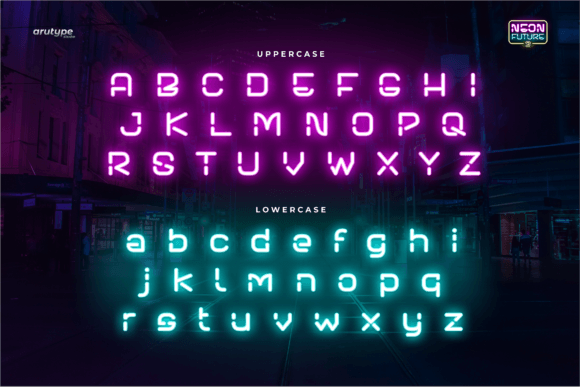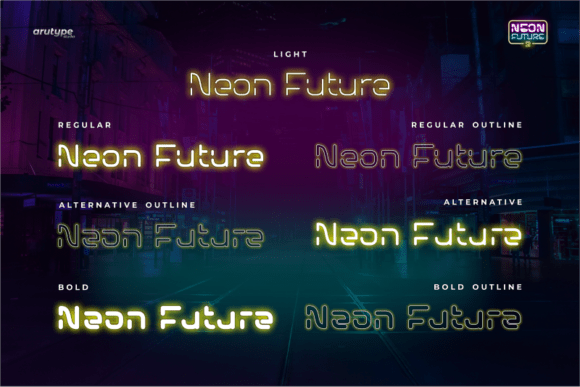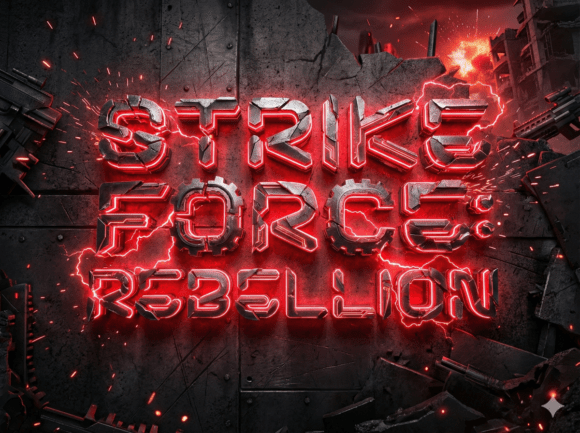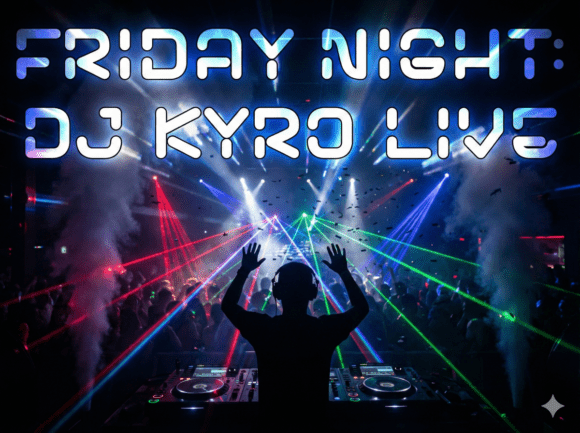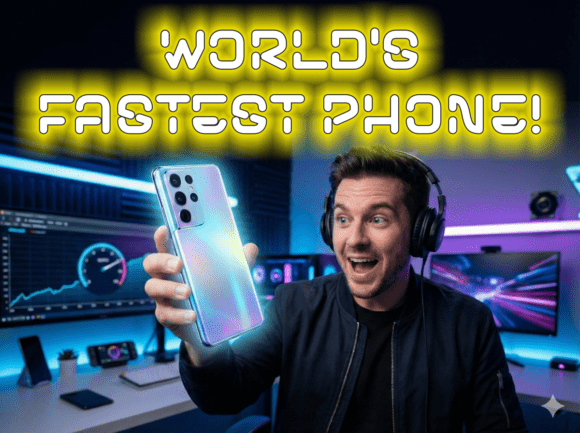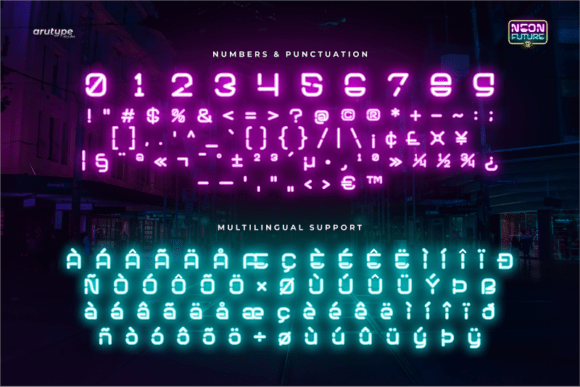
Introduction to Neon Future 2 Font
As a designer, have you ever been stuck on a project and needed that one special element to take it to the next level? Maybe you’re working on a futuristic-themed poster or a retro-inspired social media graphic, and you’re searching for the perfect font to complete the look. That’s where the Neon Future 2 Font comes in – a stunning retro-futuristic display font that’s sure to elevate your creative project and make it stand out.
With its timeless style and trendy urban look, the Neon Future 2 Font is a valuable resource for designers. Whether you’re working on a high-end marketing campaign or a personal design project, this font is sure to add a touch of sophistication and creativity to your work. Plus, with its transparent background and high-quality design, you can use it as a design element or a standalone graphic – the possibilities are endless!
Key Features of Neon Future 2 Font
- High-quality digital font designed for creative projects, ideal for use in graphic design, typography, and visual effects.
- Designed with a futuristic aesthetic, featuring sleek lines, vibrant colors, and a unique style that sets it apart from other fonts.
Honest Review: Neon Future 2 Font
I recently had the opportunity to work with the Neon Future 2 Font, and I must say it’s been a game-changer for my creative projects. This font is a fantastic addition to any design resource, and I’m excited to share my honest review with you.
What works well: ✨ The Neon Future 2 Font is incredibly versatile, making it perfect for a wide range of designs. From futuristic sci-fi projects to modern tech websites, this font shines. The high-quality design ensures that it looks great on both light and dark backgrounds, and the transparent background option gives me endless possibilities for creative compositions.
What’s not so great: ⚠️ One of the limitations of the Neon Future 2 Font is its limited character set. While it’s perfect for headings and titles, it may not be suitable for large blocks of text. Additionally, some of the characters may require manual kerning to ensure they look their best.
Overall, I’m thoroughly impressed with the Neon Future 2 Font. It’s a high-quality design resource that’s perfect for any creative project. Whether you’re working on a futuristic theme or just want to add some modern flair to your designs, this font is sure to impress.
The Neon Future 2 Font is ideal for creative projects that require a futuristic and high-tech aesthetic, such as sci-fi posters, futuristic logos, and tech-related designs.